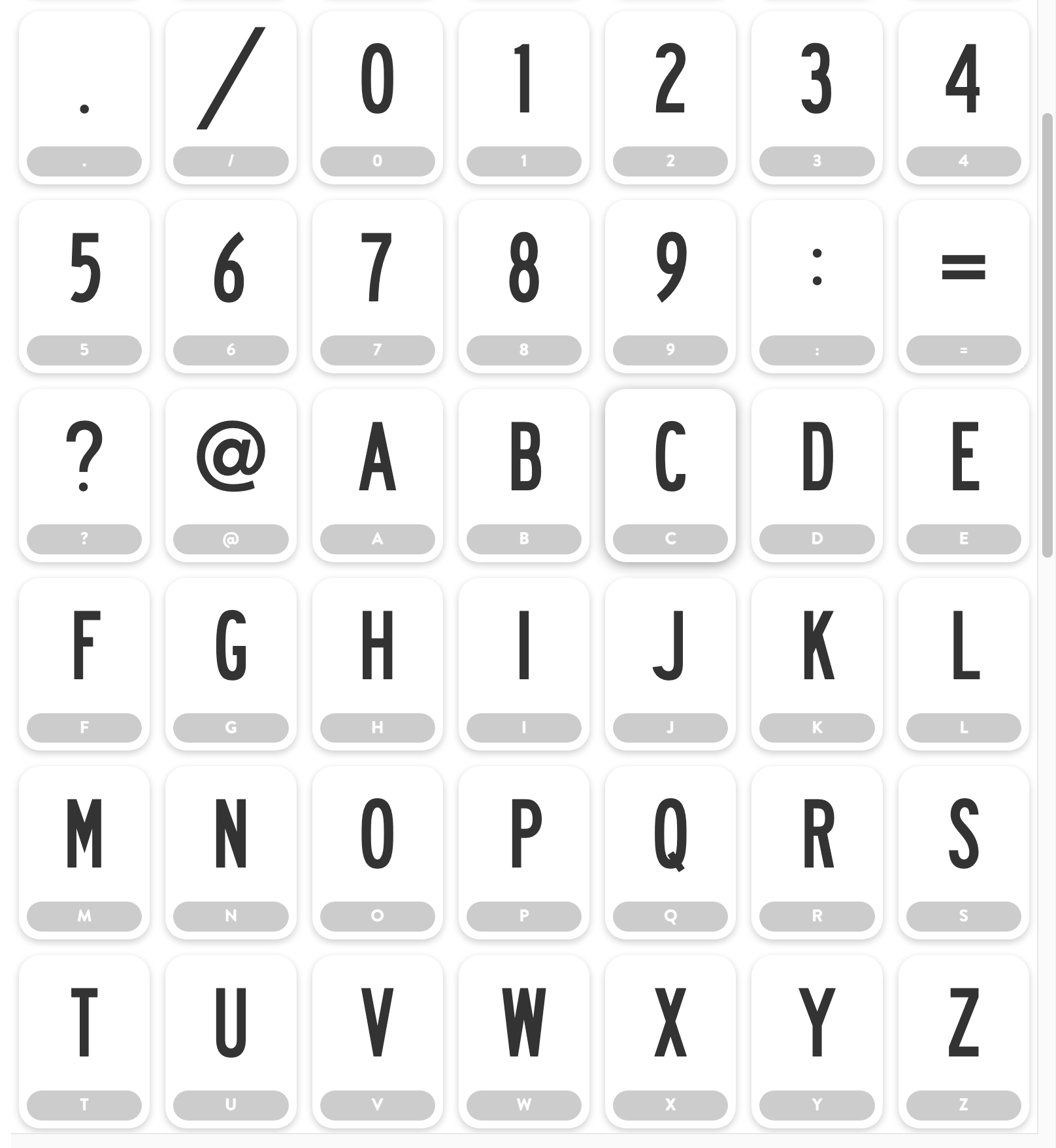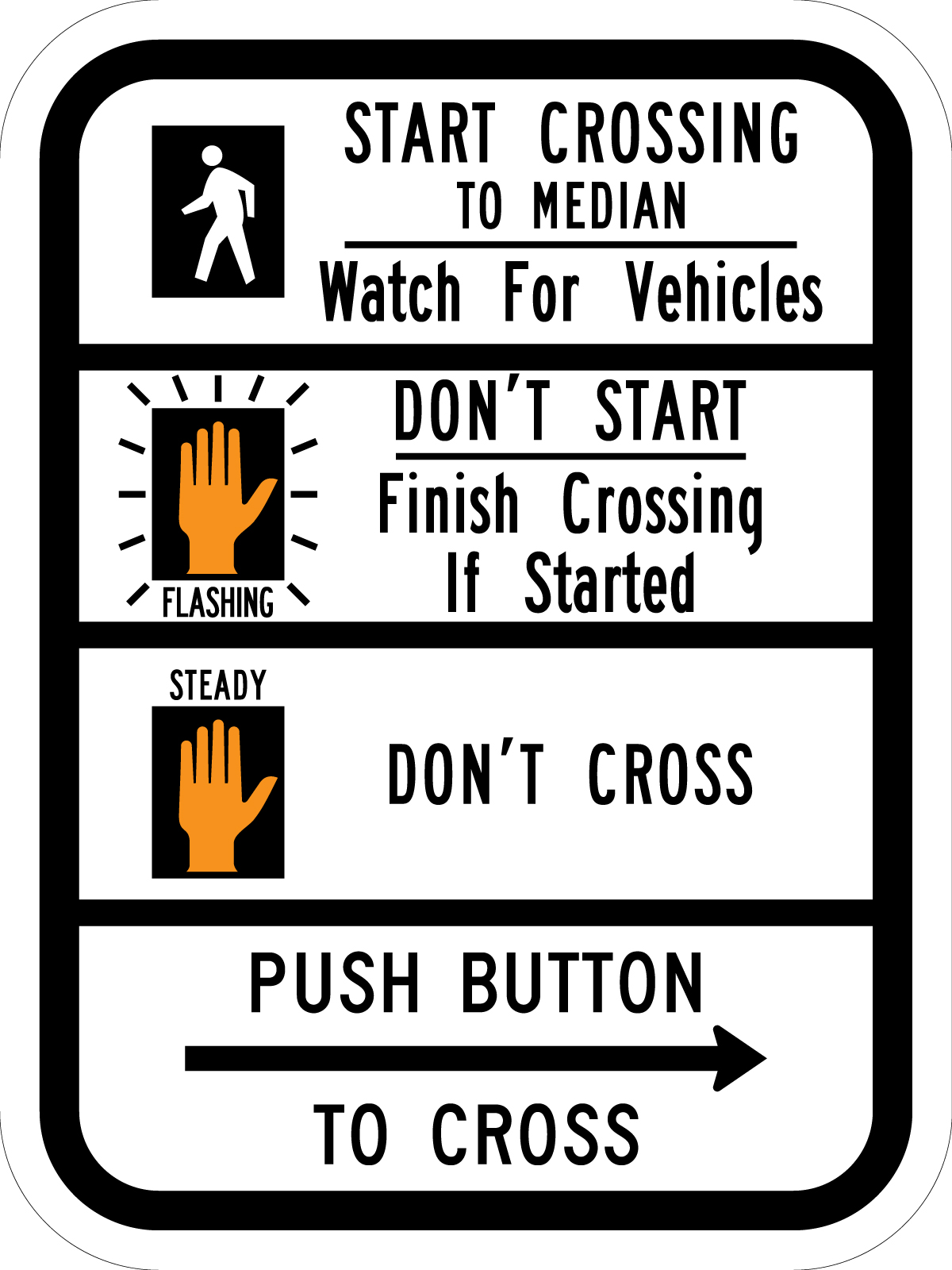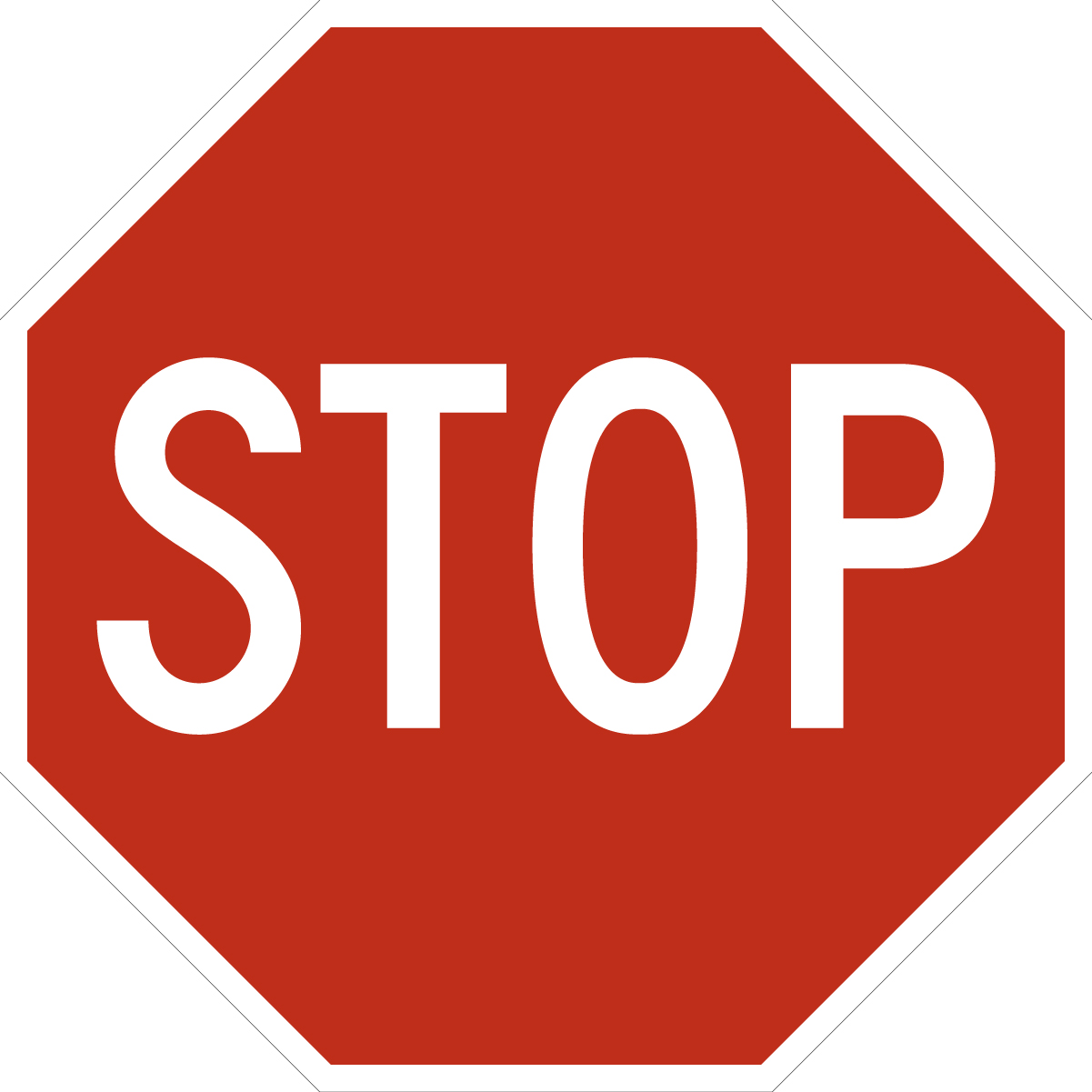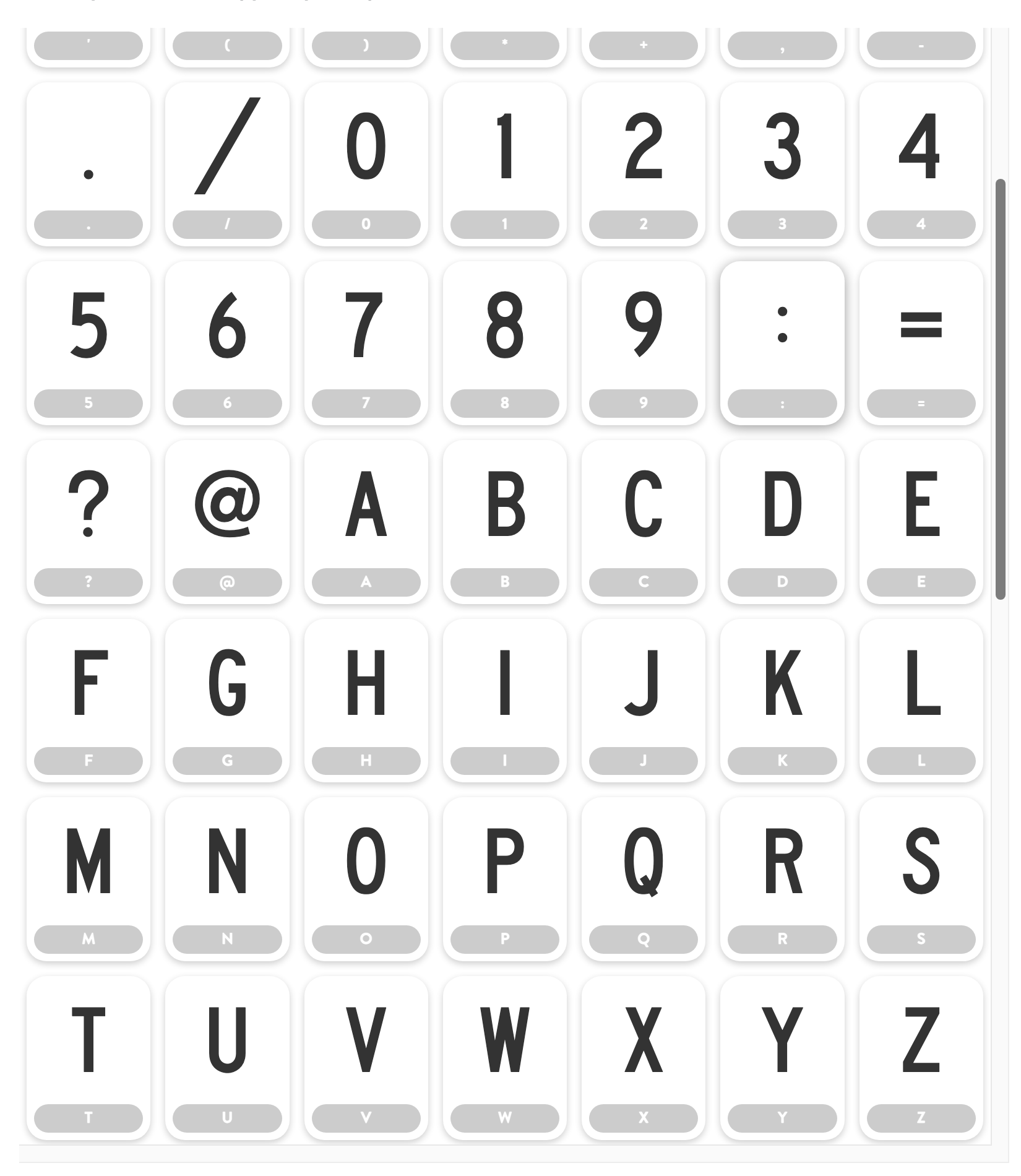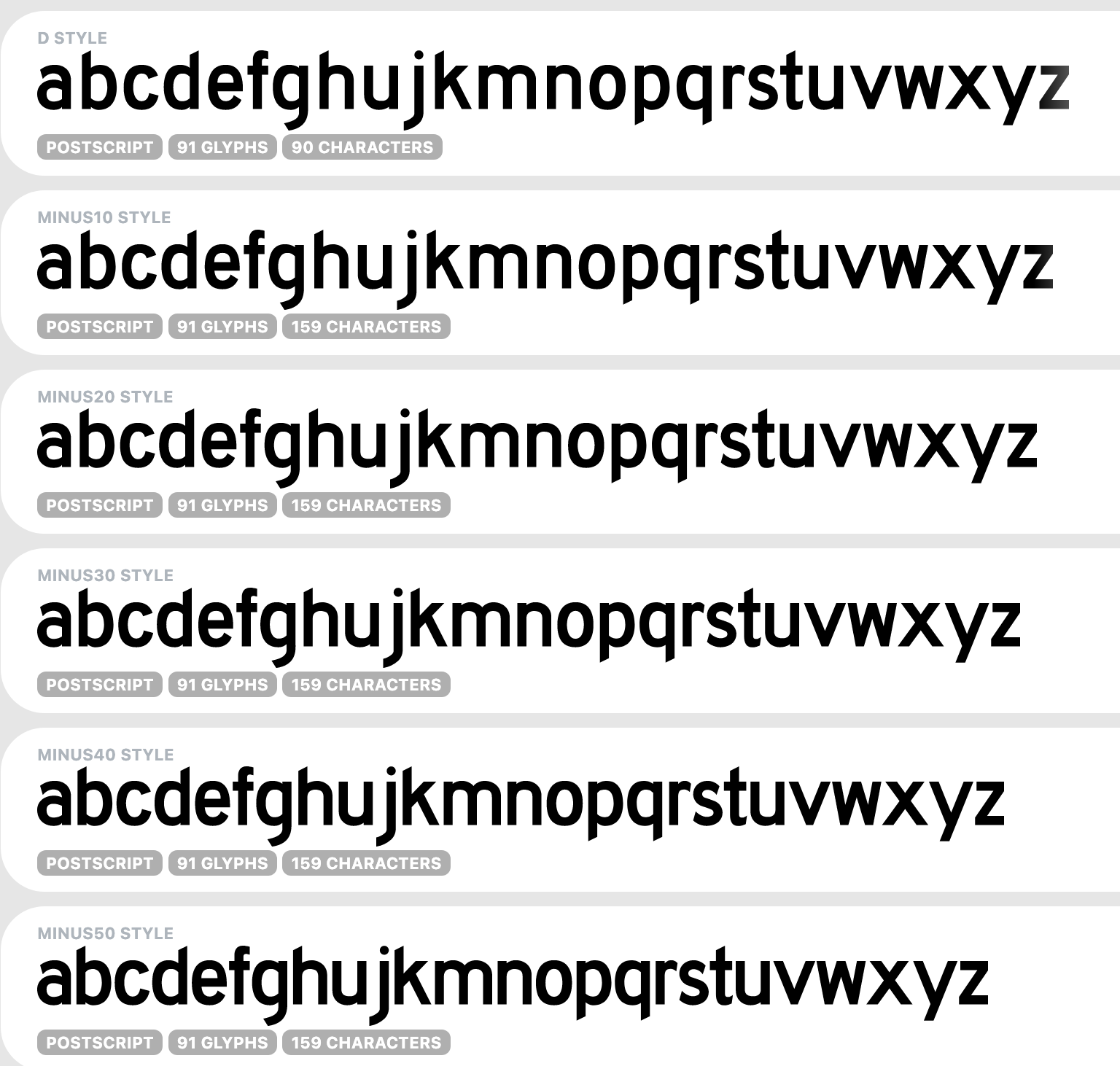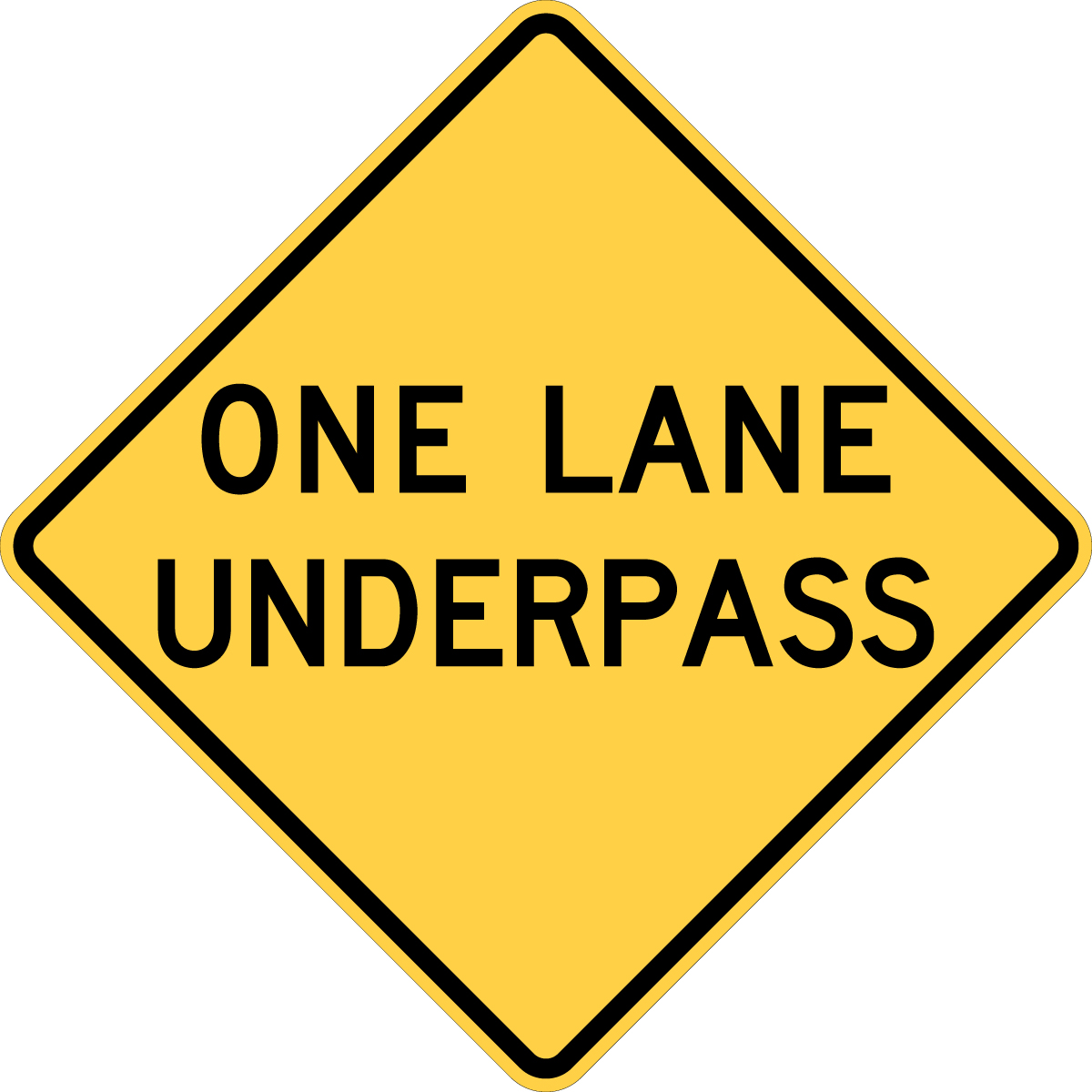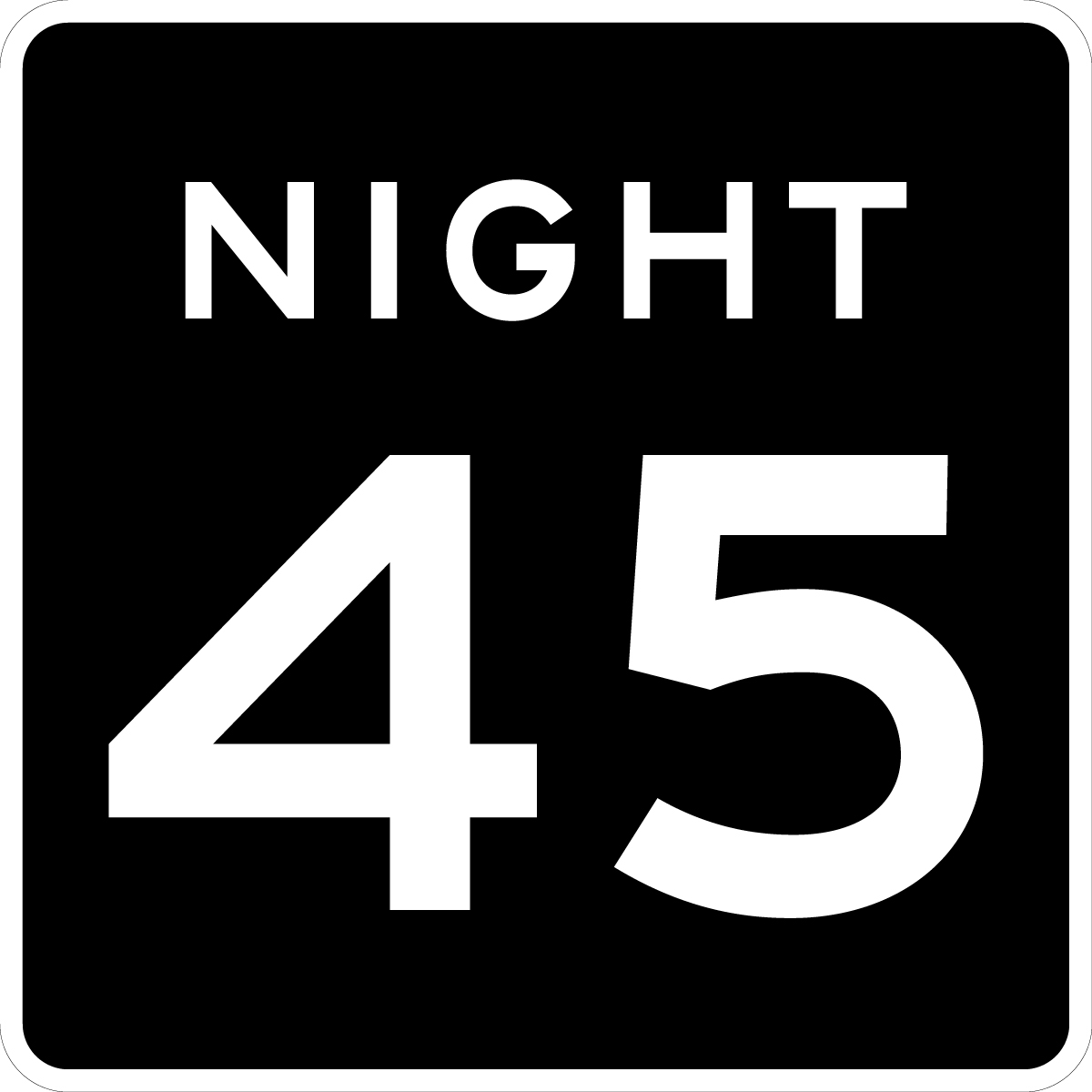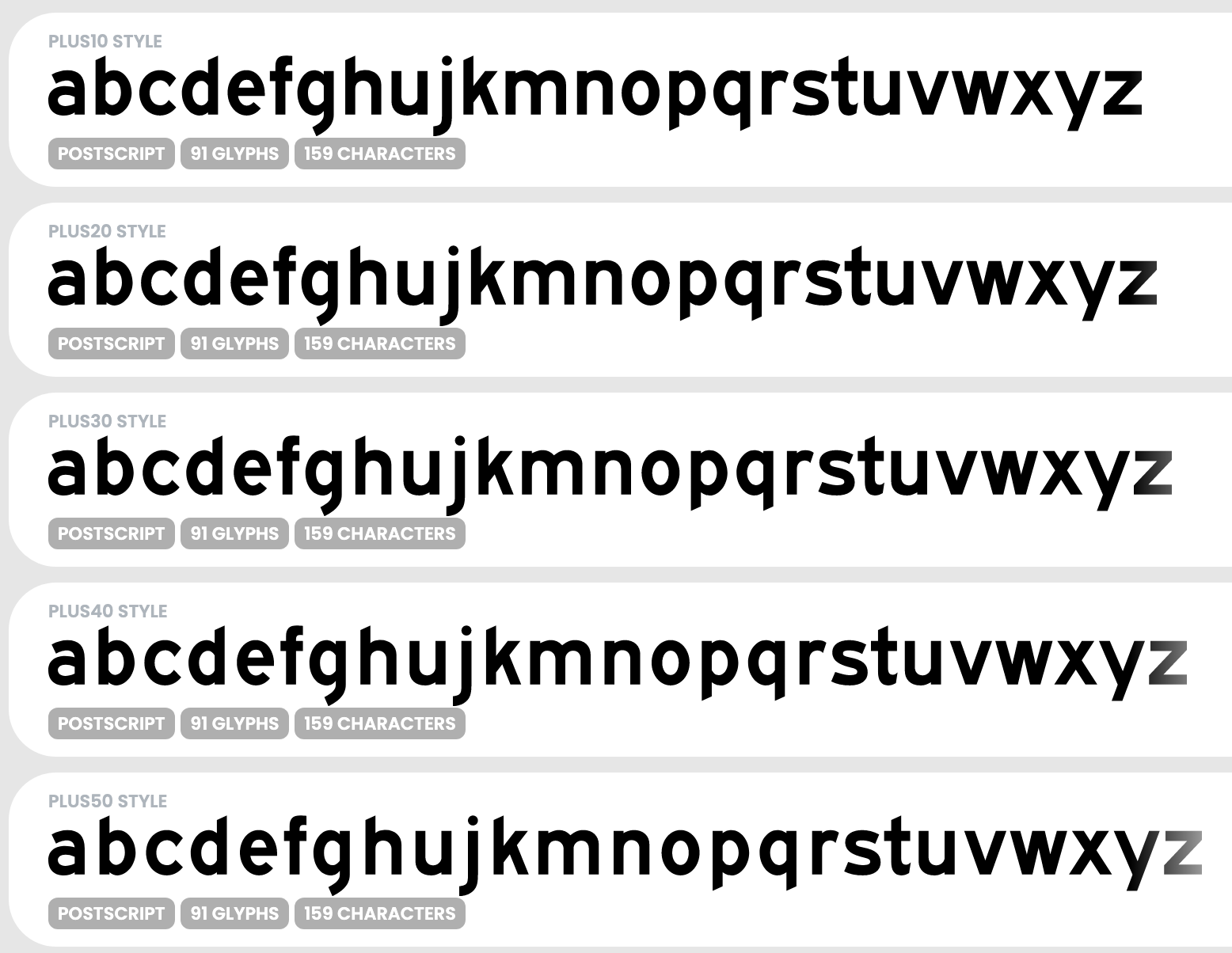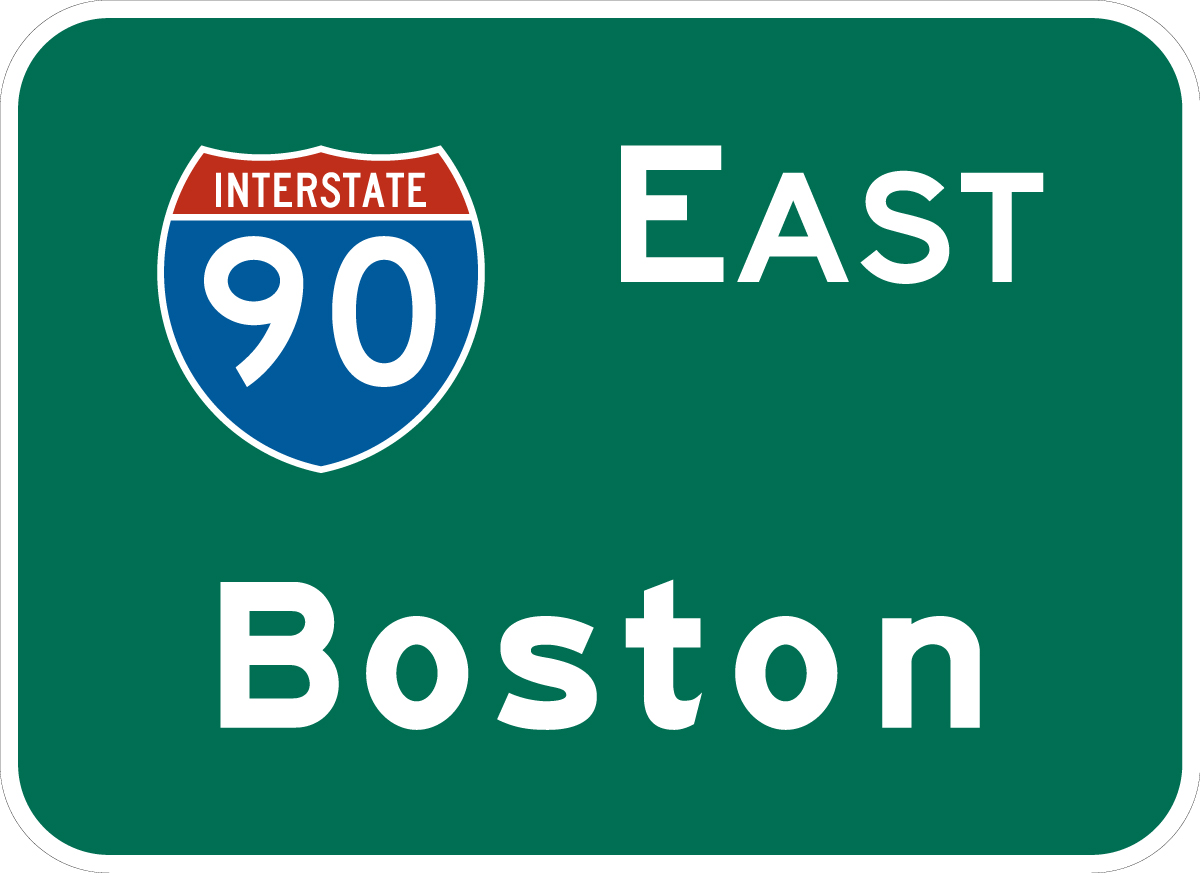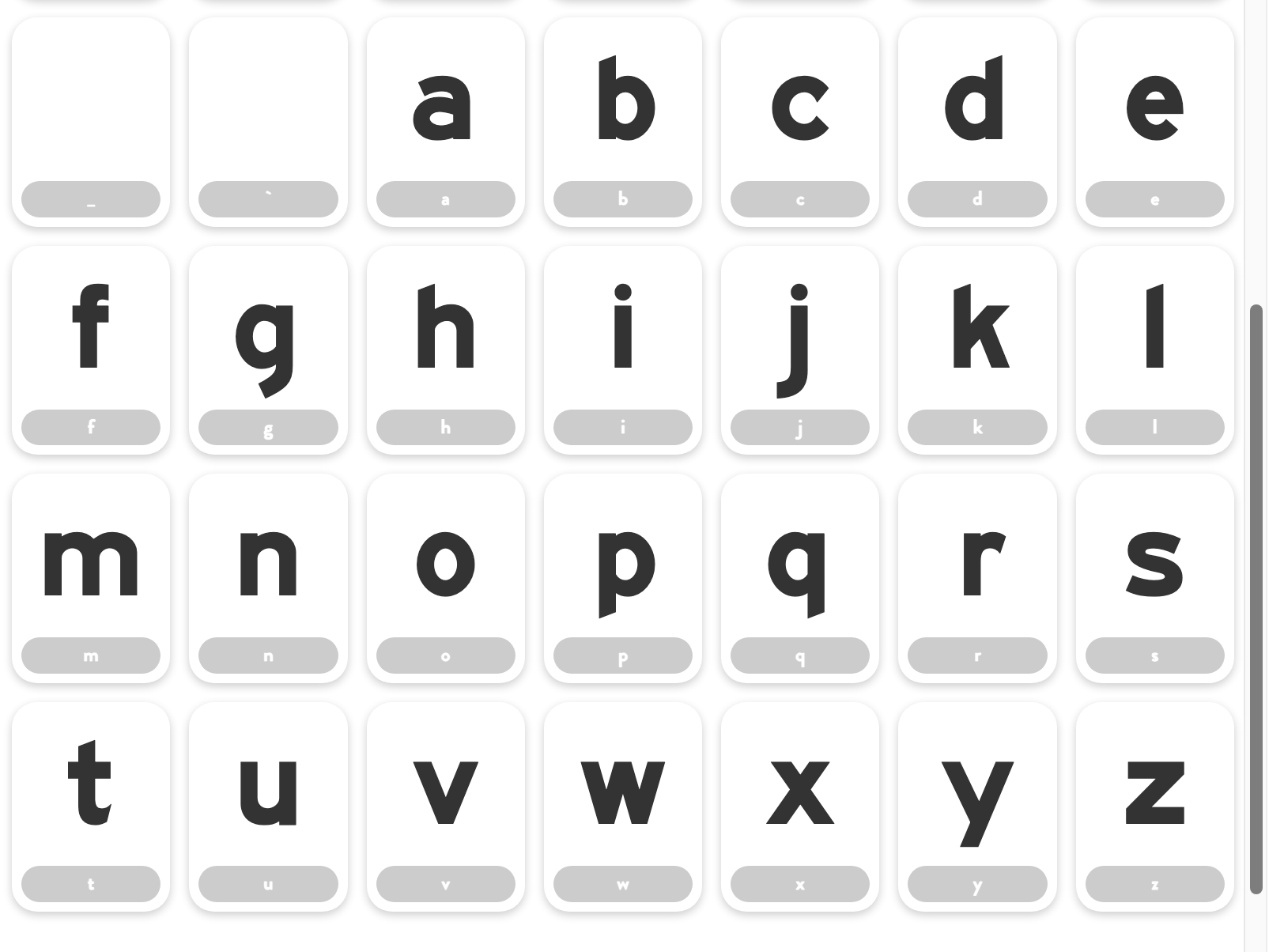
Barry Stock Fonts
American designer Barry stock ss a subcontractor for the US FHWA, on the The Manual on Uniform Control Devices (MUTCD) and Standard Highway Signs manual. There was a significant update to all of the Highway Gothic types in use by FHWA in 2025. FHWA does not issue fonts, but to facilitate his work for them, he created free, public domain, Opentype fonts with the updated letter forms and spacing. These contain the outlines and widths used in all of the current (2025) signage issued by the FHWA. FHWA specs signage to 1/1000th of an inch, and the fonts are built on a 5,000 em square to insure their accuracy when building signage for the public. The update's most significant change is to the x-height, ascenders, and descenders of all of the fonts, standardizing them throughout the range. Other changes include a revised lower case s in C and D, built fractions, and a narrower w in D. There are two different modes of using the fonts. One set is family-built with B, C, D, E, Emod, and F in one menu, and meant for the casual user. The other mode provides a family for each weight with positive and negative spacing based on FHWA's percentage system for letterspacing, which differs from Adobe's method of tracking, and are meant to be used for official signage. The fonts contain only the characters used in the official releases, without kerning (which is standard for Highway Gothic), and are taken directly from DXF files provided by FHWA. Designer of Byway (2018), which is a free family of sans typefaces. He explains the design: Byway is a series of four typefaces that resolve the narrowest width and widest width of the existing FHWA Highway Gothic types. Those existing designs (Highway Gothic Series C, Series D, Series E, Series E Mod) are each standalone designs that are related, but not truly harmonized. Byway Series C, D and E are smooth steps between the FHWA Series B and Series F, and the Series E Mod is accomplished in the same manner as FHWA Series E Mod, with additional weight and following the same horizontal and vertical proportions. The fonts only contain the characters present in the original FHWA types. Other fonts by Barry Stock include Porcini (2024: a death metal font), Tarpon Motel (2018; a constructivist font that updates an earlier design by him from 1991 Opticon, which enjoyed a great deal of popularity as a shareware font, even appearing as the logo and credit type for the 1997 Golden Globe Awards), Ludlow Tempo (2015; digitized from Ludlow specimen books and based on Futura), and FHWA Series BC, CD, DE and EF. |